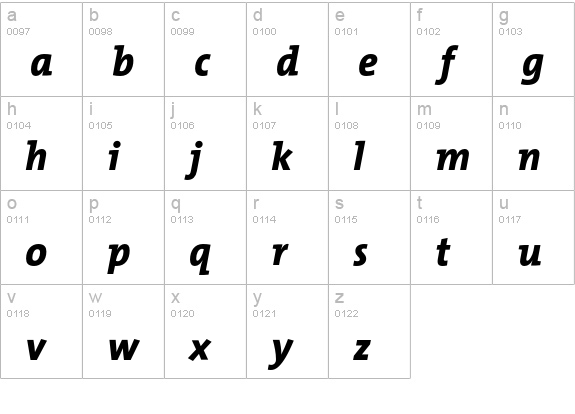
TMixExtraBold-Italic Font Details
TMixExtraBold-Italic is a distinctive, italic variant in the TMixExtraBold typeface family \xE2\x80\x94 well suited to design and typography projects.
TMixExtraBold-Italic is a stunning and contemporary typeface that exudes confidence and elegance. With its bold and italicized design, this font commands attention and adds a touch of sophistication to any project. The sleek and refined letterforms of TMixExtraBold-Italic are perfect for headlines, titles, and branding materials. This font's extra-bold weight creates a powerful visual impact, making it ideal for designs that require a strong and impactful presence. The italicized style adds a sense of movement and dynamism, making TMixExtraBold-Italic a versatile choice for both print and digital media. TMixExtraBold-Italic is a free font that is available to download at FontsMarket.com. This means that you can easily access and utilize this exceptional typeface for personal and commercial use without any cost. Its availability on FontsMarket.com ensures that designers and creatives can effortlessly incorporate this font into their projects, adding a touch of professionalism and style. Whether you're designing a logo, creating eye-catching posters, or crafting engaging social media graphics, TMixExtraBold-Italic is the perfect font to elevate your designs. Its bold and italicized aesthetic, combined with its availability as a free download, make it a must-have in any designer's font library. Download TMixExtraBold-Italic for free at FontsMarket.com and unlock the potential to create visually stunning and impactful designs that leave a lasting impression.